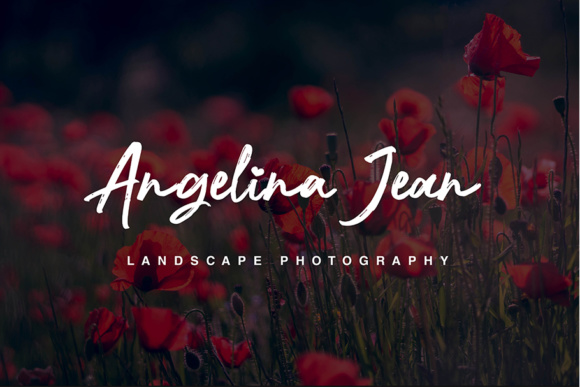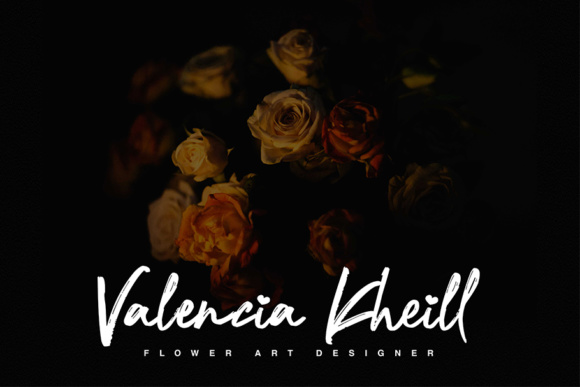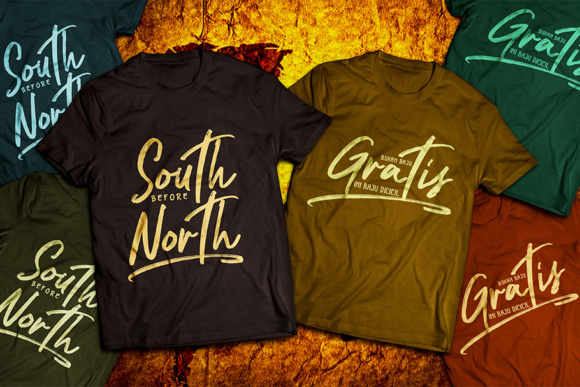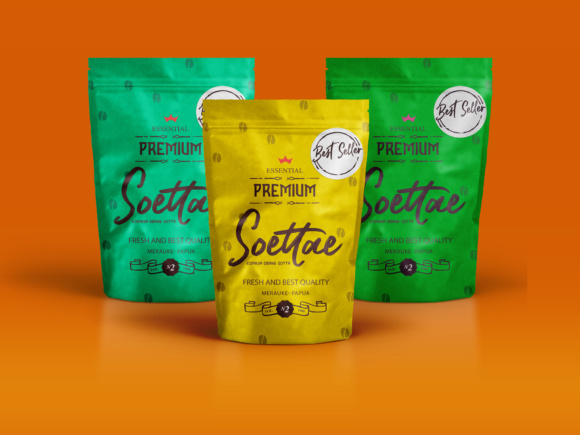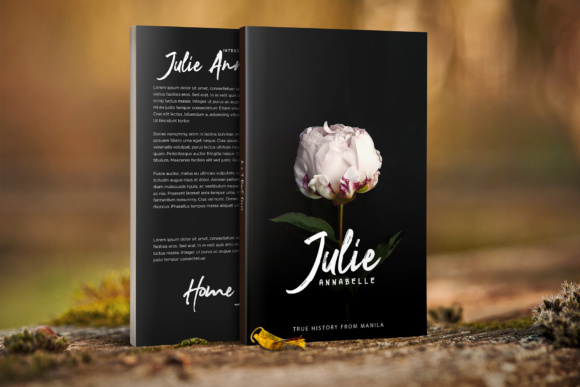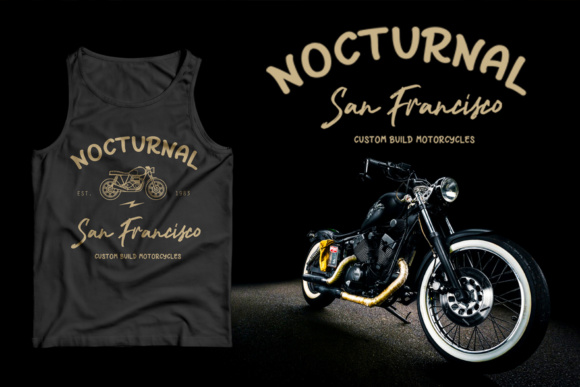
Introduction to Nocturnal Script Font
Nocturnal is a breathtaking brush stroke font, ideal for use in branding projects and other standout project types.
This font has an extremely elegant appeal, and is equipped with two different styles and swashes so you can always create unique designs every time .